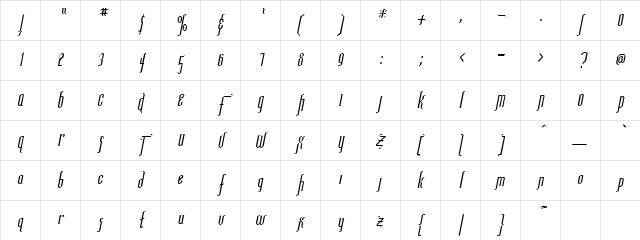
Yarborough Oblique
Design Context for Yarborough
Yarborough embraces imperfection - its rough, textured character adds raw authenticity to designs that want to feel lived-in and unconventional. The slanted form adds forward momentum and visual energy.
Pro Tip: Use Yarborough at larger sizes where the texture and irregularity of each letterform can be clearly seen - it loses its character at small sizes.